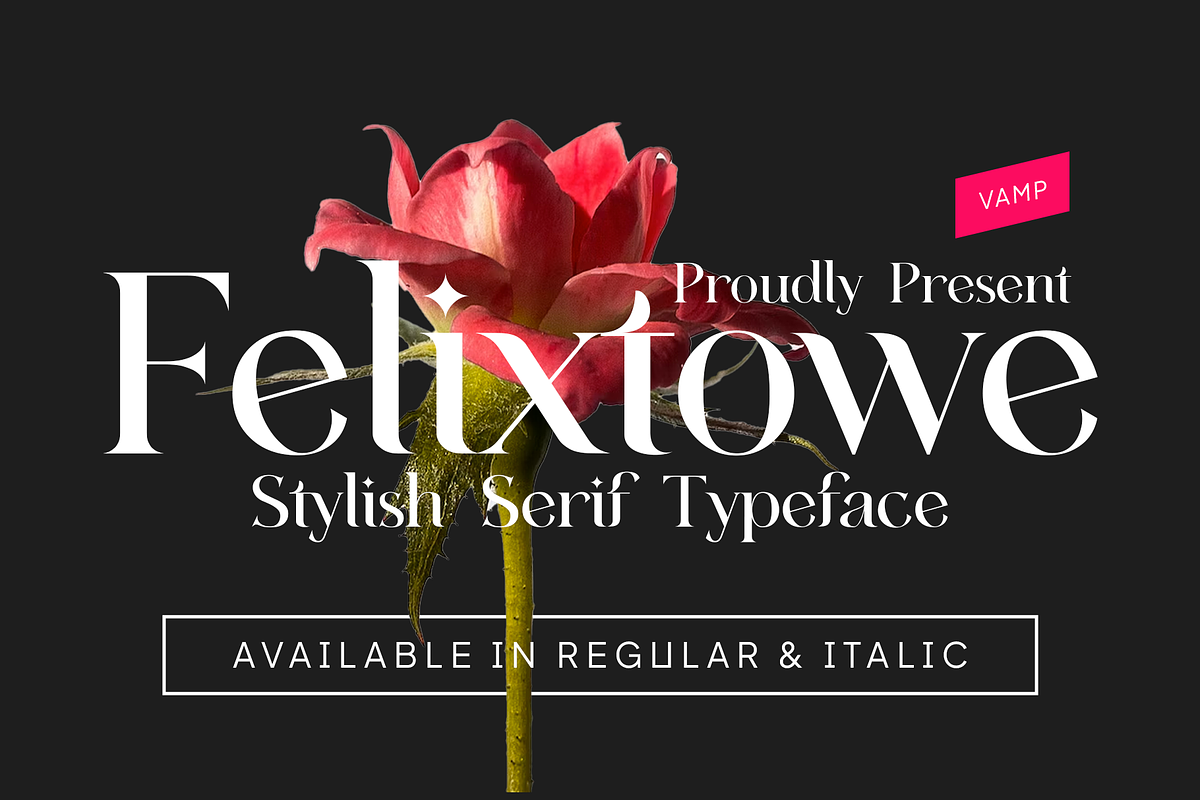
The Felixtowe Serif Font Free Download is a classic and refined typeface with timeless elegance. Its graceful serifs and balanced letterforms make it an excellent choice for editorial design, book covers, wedding invitations, branding, and upscale packaging. This font captures the sophistication of traditional print while blending seamlessly into modern design projects.
Felixtowe offers great readability and character, making it suitable for both headlines and body text. It includes various weights, stylistic alternates, and multilingual support to ensure your creative ideas are fully realized with precision and flair.